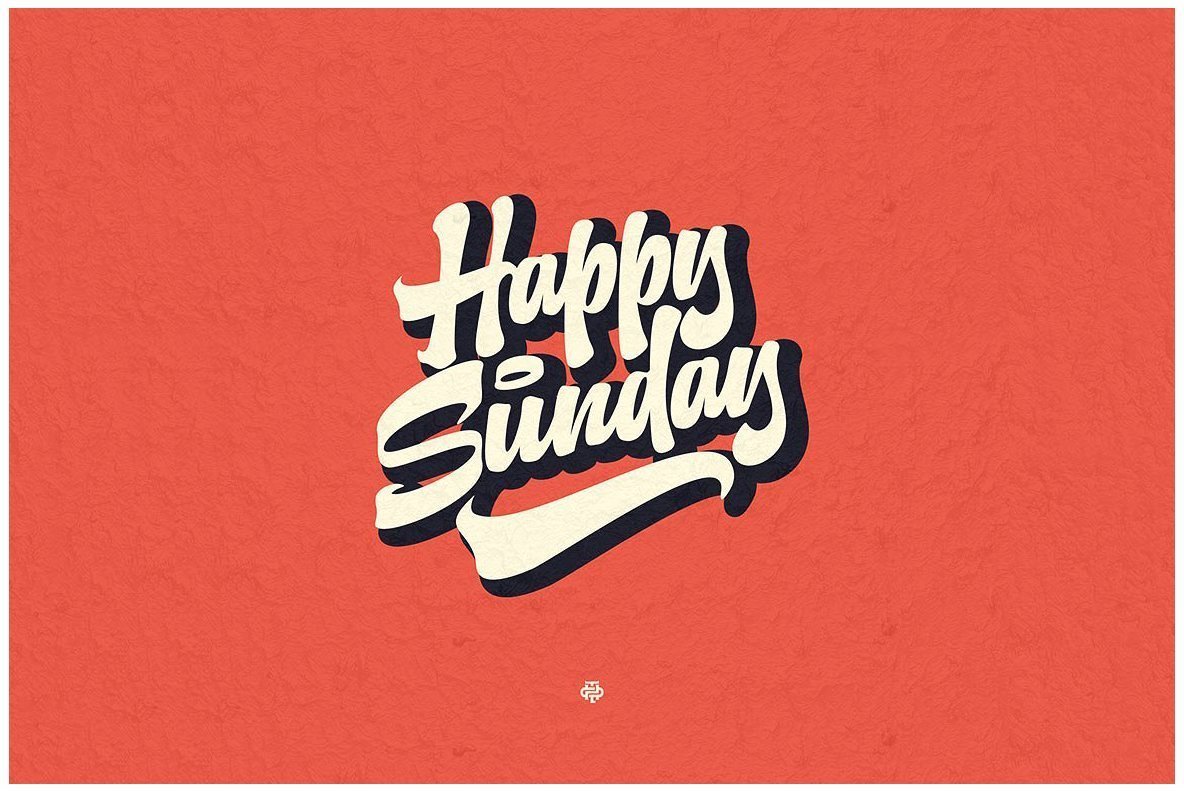
Daylight Font
Daylight Swash
Daylight Typeface
Daylight, the latest creation from Hotline Supply, brings an elegant character to contemporary graphic design. This typeface, inspired by the dynamic world of graffiti and hip hop culture, offers a unique fusion ideal for innovative projects. Mixing uppercase and lowercase letters with alternative glyphs allows for visually appealing text compositions.Daylight: A Graffiti-Inspired Typeface with Hip Hop Flair